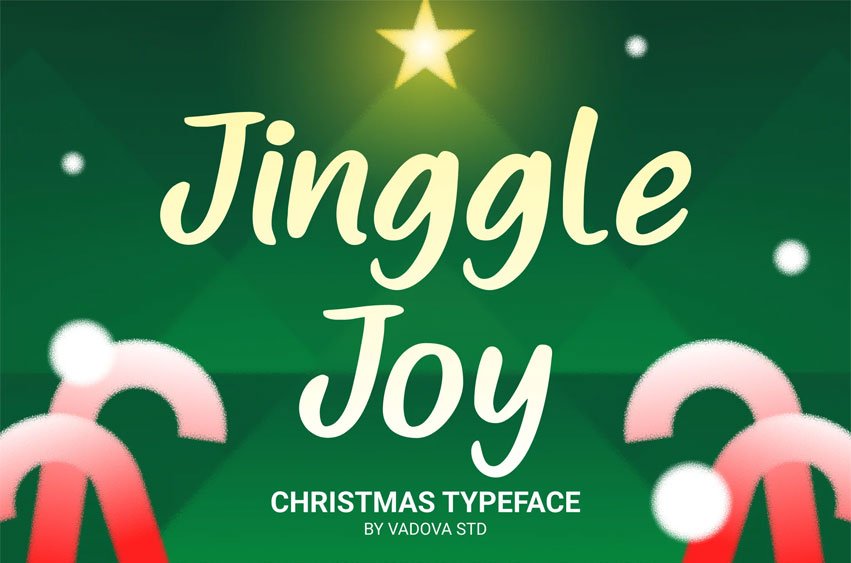
Jinggle Joy Font Handwritten Font is a cheerful and festive typeface with playful handwritten strokes and smooth flowing curves. Its casual style gives a warm and personal feel that makes every design more inviting. The font includes uppercase, lowercase, numerals, and punctuation, crafted for readability and creative expression. With its joyful character, Jinggle Joy is perfect for spreading happiness and celebration through design.
Relevance and Use Cases Jinggle Joy is perfect for Christmas greeting cards, festive invitations, seasonal posters, social media quotes, lifestyle blog headers, YouTube thumbnails, wedding stationery, cheerful product packaging, handmade product labels, journaling templates, seasonal advertising campaigns, event promotions, and creative projects with a joyful handwritten feel.